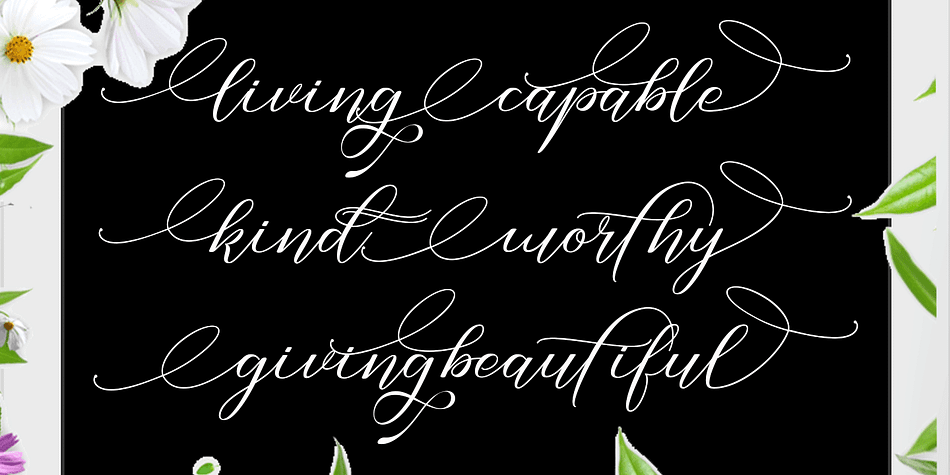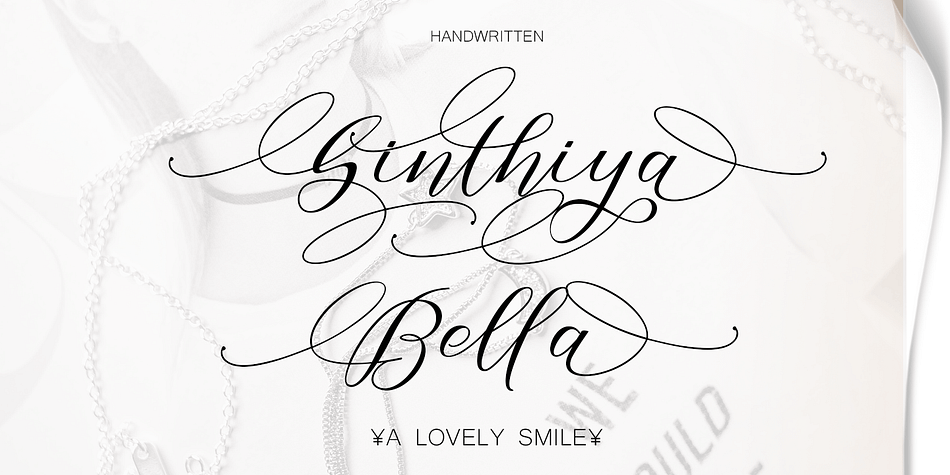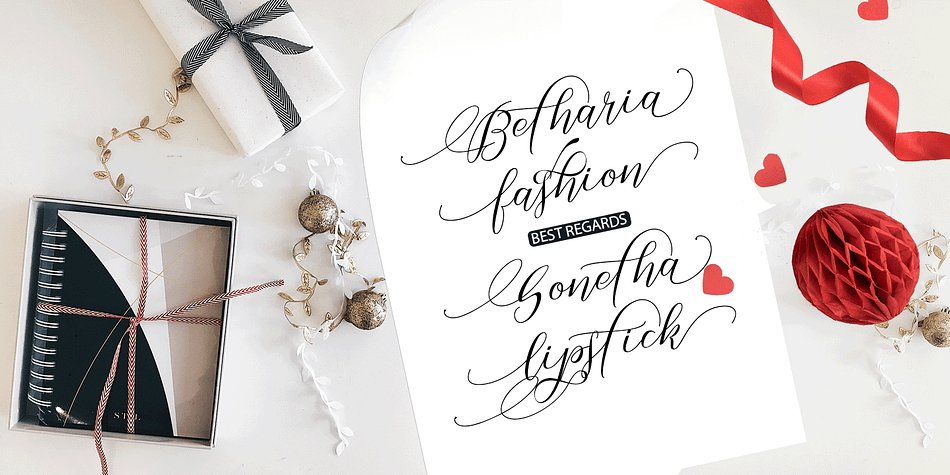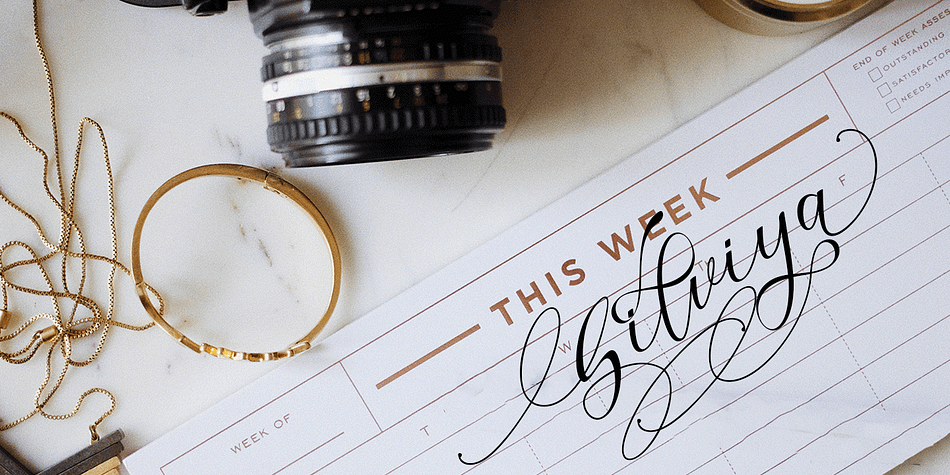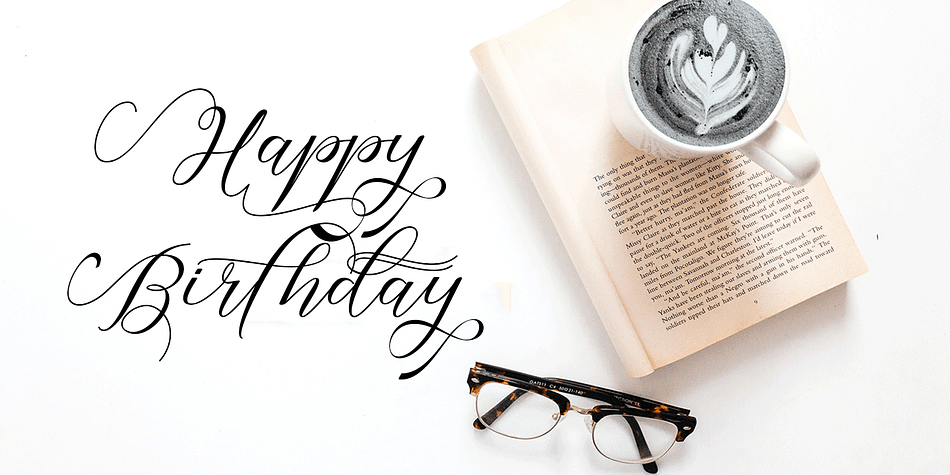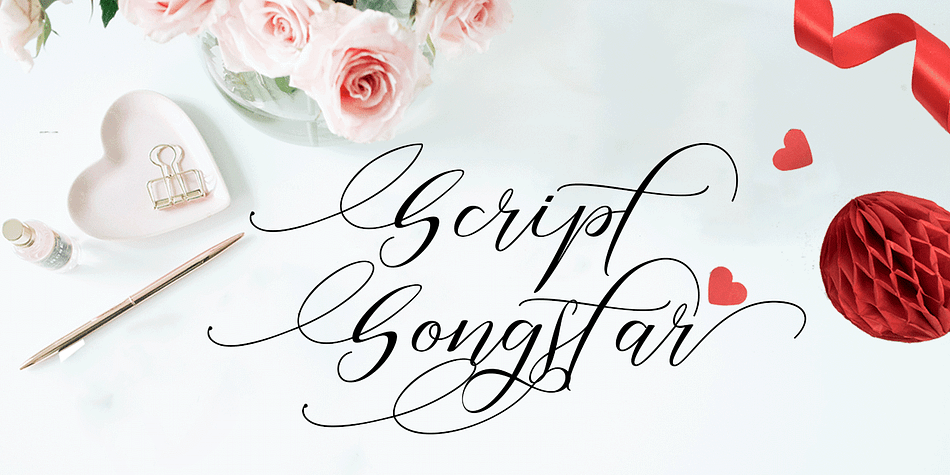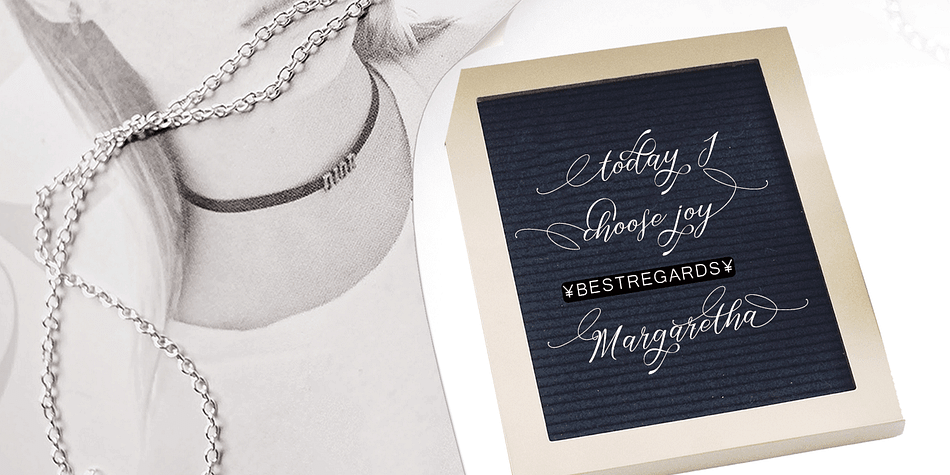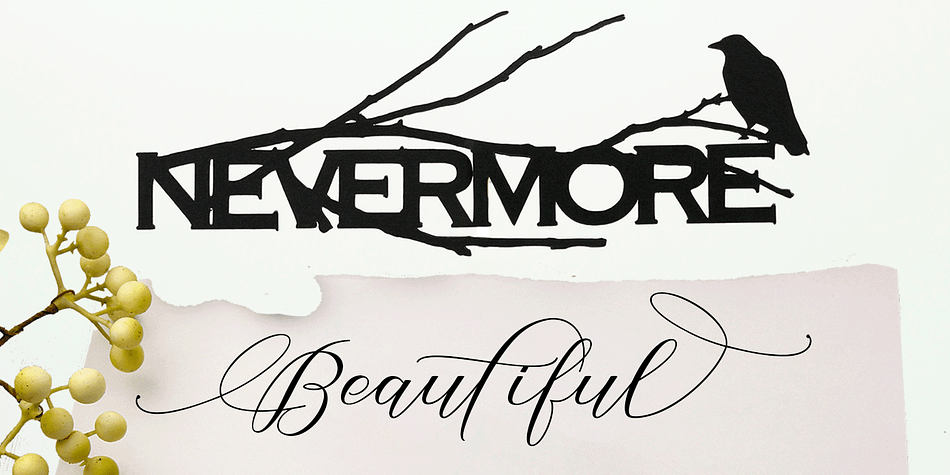
Designed by Rahmat Hidayat, Sinthiya Bella is a modern calligraphy and script font family published by RtCreative.
Beautiful Sinthiya Bella
is a new varian of handmade script typepace. present to you to complete your colections of script font. This typeface has been enriches with additional alternates characters up to 580 glyphs. Do hope helpfully to catch any design soul. finally, no word to say than “Go success and enjoy it”.
The Sinthiya Bella font is a simple and classy font, comes with various Elegant Variations, open type features such as style alternatives, initial and final shapes, and ligatures. We keep this font looking elegant, classy, easy to read, stylish, attractive and easy to use.
Sinthiya Bella Font is a great choice for watermarks on photography, signature or signature logo designs, quotes, album covers, business cards and many other design projects. From business cards to photo watermarks, The Sinthiya Bella is here to elevate your work to the highest level.
Main Features:
Titling Alternate
Stylistic Alternate
Stylistic Set 01-19
Contextual Alternate
Ligatures
Discretionary ligature
Contextual ligature
Swash Variant
Initial Form
Medial Form
Terminal Form
The variety of Sinthiya Bella will make you smile and happy. Just choose the variation you like best. WITHOUT DOUBT ! . If those variations don’t touch your heart, we will add more variations in future updates :)